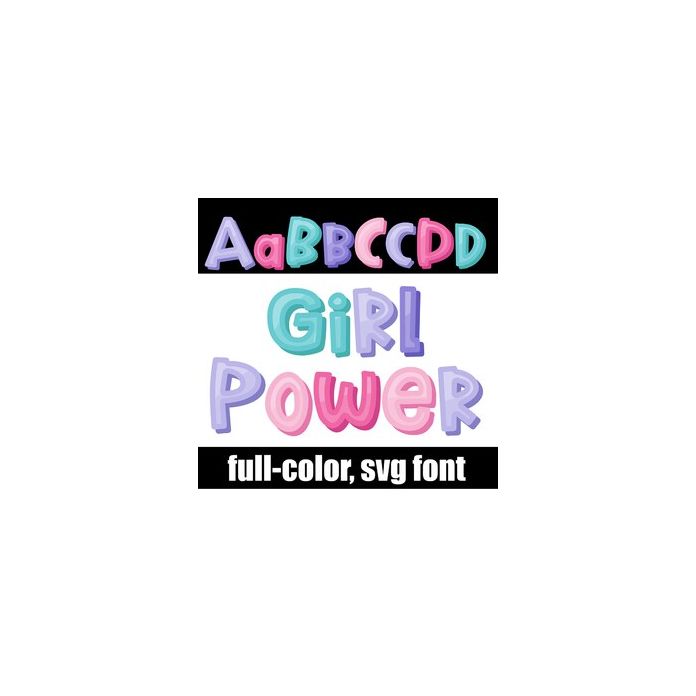
This full-color font features a 3d power font in a girly color palette. There is an alt case w/ additional colors you can access through your system or Silhouette's glyph map.